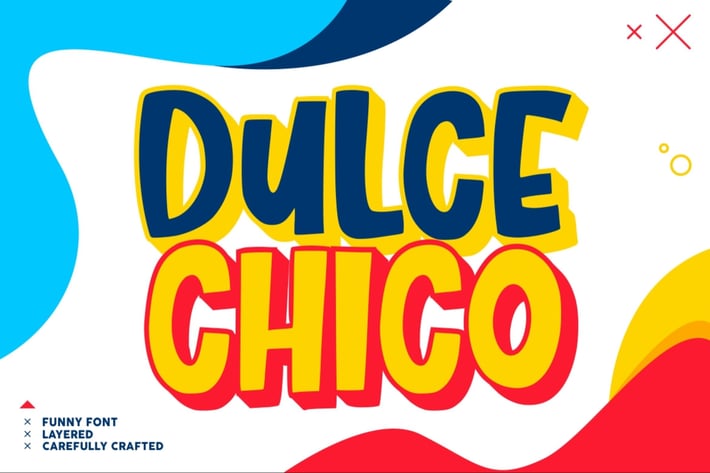
Dulce Chico - a Display & Playful Fonts
Introducing Dulce Chico - a Display & Playful Fonts
Dulce Chico is the perfect font for all your fun designs. The main font file is equipped with ordinary characters, as well as more than 350 glyphs to support most Latin-based languages. Everything is made with the same brush, and everything is the same size as Letter Kids, so you can be sure they will work well together! It is suitable for you to use in making t-shirt design, quote, label, packaging, logo type, or long writing. Because we have compiled kerning and matrices that are tailored to your needs.
Dulce Chico feature:
More than 350+ glyphs
* 16 languages support (Look second last preview for support language you need)